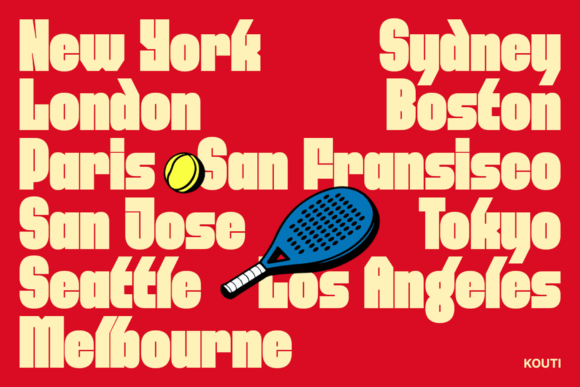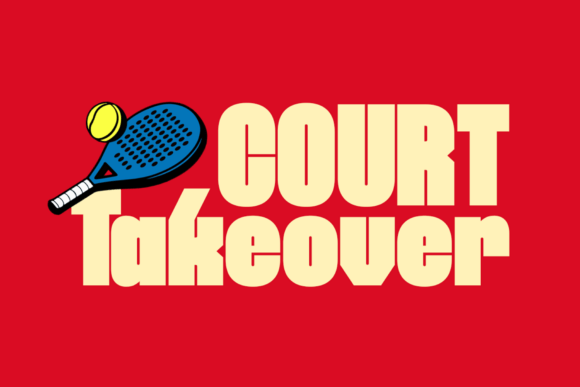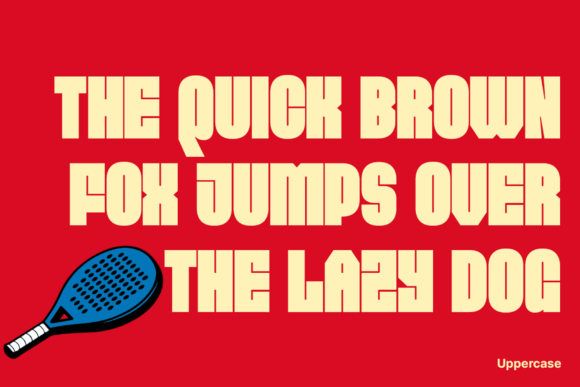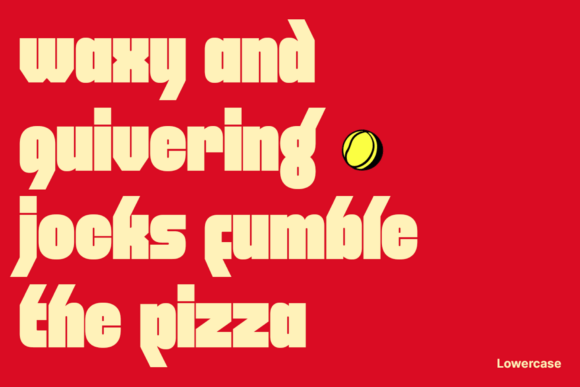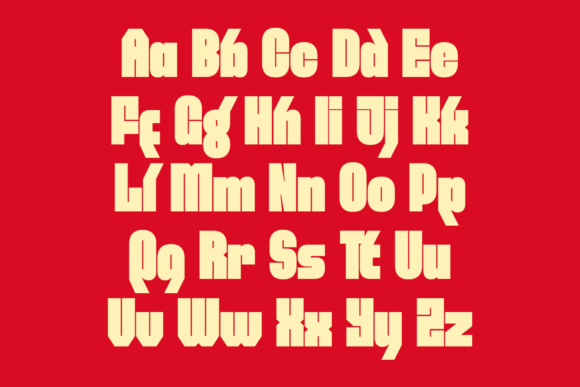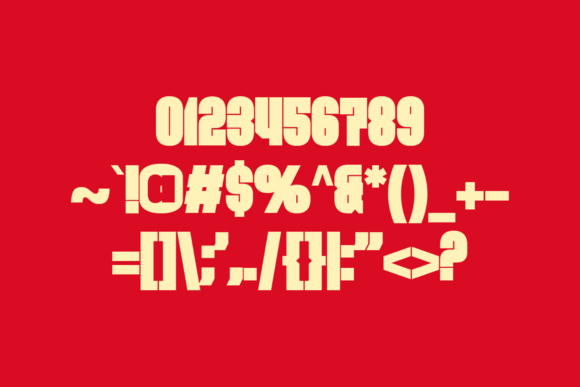
Introduction to Kouti Font
Have you ever stumbled upon the perfect font that elevates your entire design project? It’s that moment when all the elements come together in harmony, and you know you’ve found something special. For designers, this feeling is priceless. And that’s exactly what the Kouti Font aims to deliver – an unbeatable burst of energy that captures the spirit of modern athleisure and bold, graphic design.
As a valuable design resource, the Kouti Font is built to make a powerful statement, whether you’re working on a high-quality branding project or a creative endeavor with a transparent background. Its unique character and custom shapes set it apart from other fonts, giving your branding a distinctive edge and superior visual texture that sets it apart from competitor fonts.
With its super-heavy weight and vibrant, catchy appeal, the Kouti Font is available for free download, making it an essential tool for designers looking to take their projects to the next level.
Key Features of Kouti Font
- Unique, hand-drawn design for creative projects, making it a valuable design resource.
- High-quality font with transparent background, suitable for use on any color scheme or design.
- Comes in a range of sizes and resolutions, making it easy to use in various design contexts.
- Perfect for designers and artists working on creative projects, such as logos, branding, and typography-based art.
Honest Review: Kouti Font
As a designer, I’m always on the lookout for high-quality design resources to elevate my creative projects. The Kouti Font is one such find that I’d like to share with you.
- ✨ Unique and playful design style that’s perfect for adding a touch of whimsy to your projects
- ✨ Transparent background, making it easy to use in various design applications
However, I do have to mention some limitations:
- ⚠️ Limited character set, which may not be suitable for projects requiring extensive typography
- ⚠️ Some users may find the font’s bold style overwhelming in certain contexts
Overall, the Kouti Font is a great addition to any designer’s toolkit, especially for creative projects that require a unique and playful touch. While it may not be suitable for every project, its high-quality design and free download make it a valuable resource worth exploring.
Introduction to Kouti Font
Kouti Font is a free design resource that offers a high-quality, versatile font suitable for various creative projects. With its transparent background, you can easily incorporate it into your designs without any background distractions.
Tips for Getting the Most Out of Kouti Font
Experiment with different font sizes, styles, and combinations to create unique and visually appealing designs. Use Kouti Font in conjunction with other design elements to create a cohesive look.
Common Use Cases for Kouti Font
Kouti Font is suitable for a variety of creative projects, including logos, branding materials, social media graphics, and more. Its high-quality design makes it an excellent choice for both personal and professional projects.
Can I use the Kouti Font with a transparent background?
Yes, the Kouti Font has a transparent background, making it perfect for use in creative projects that require a clear and seamless design. The font’s transparent background allows you to easily overlay it on top of images, videos, or other design elements, giving you complete control over the design